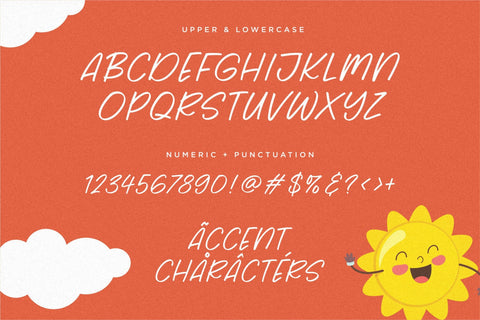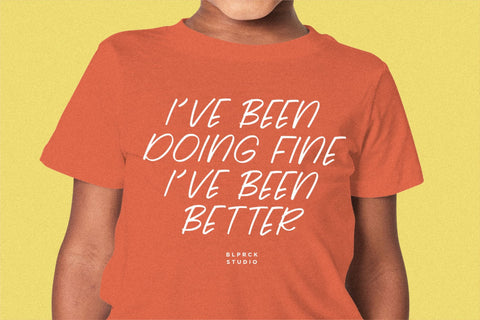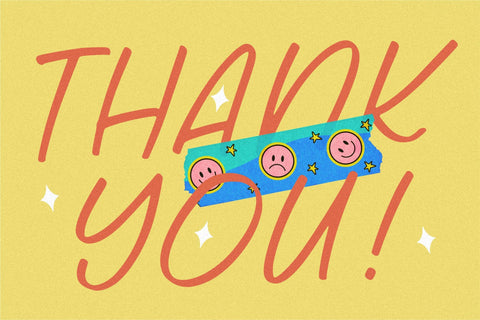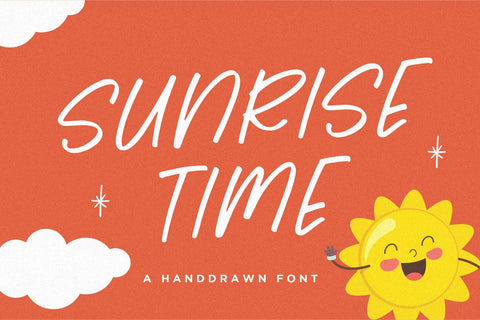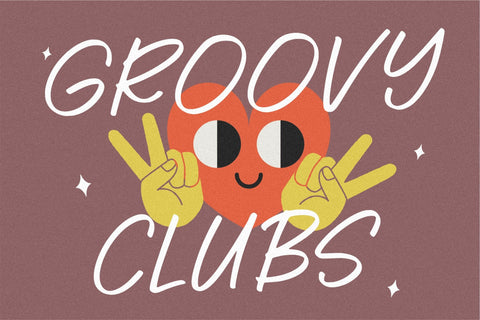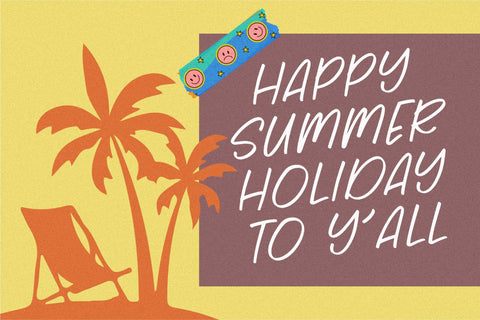
Sunrise Time Font
Sunrise Time is a Handdrawn Font.
Whether you’re using it for crafts, digital design, presentations, or making greeting cards, this font has the potential to become your favorite go-to font, no matter the occasion!
This font only has allcaps letters.